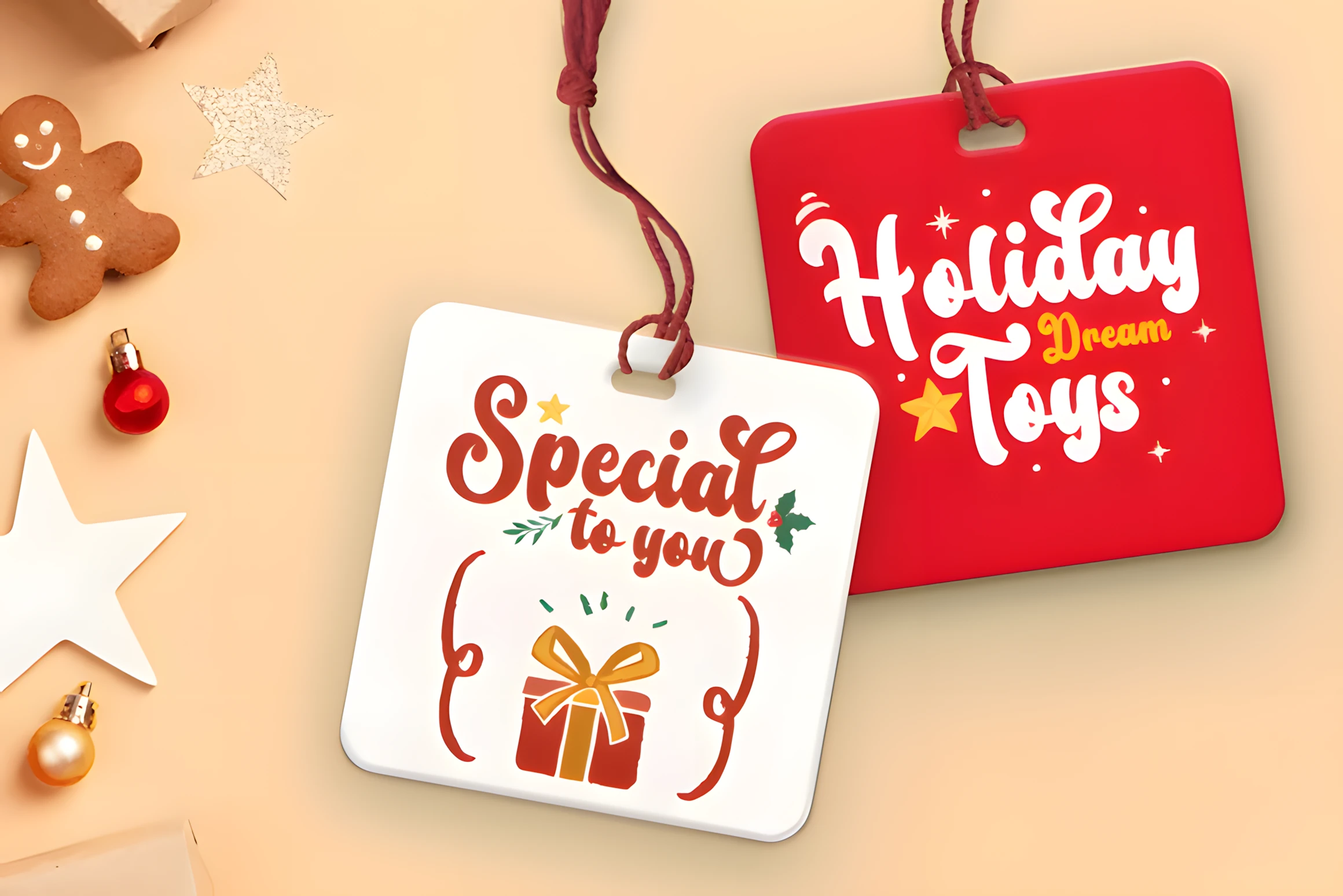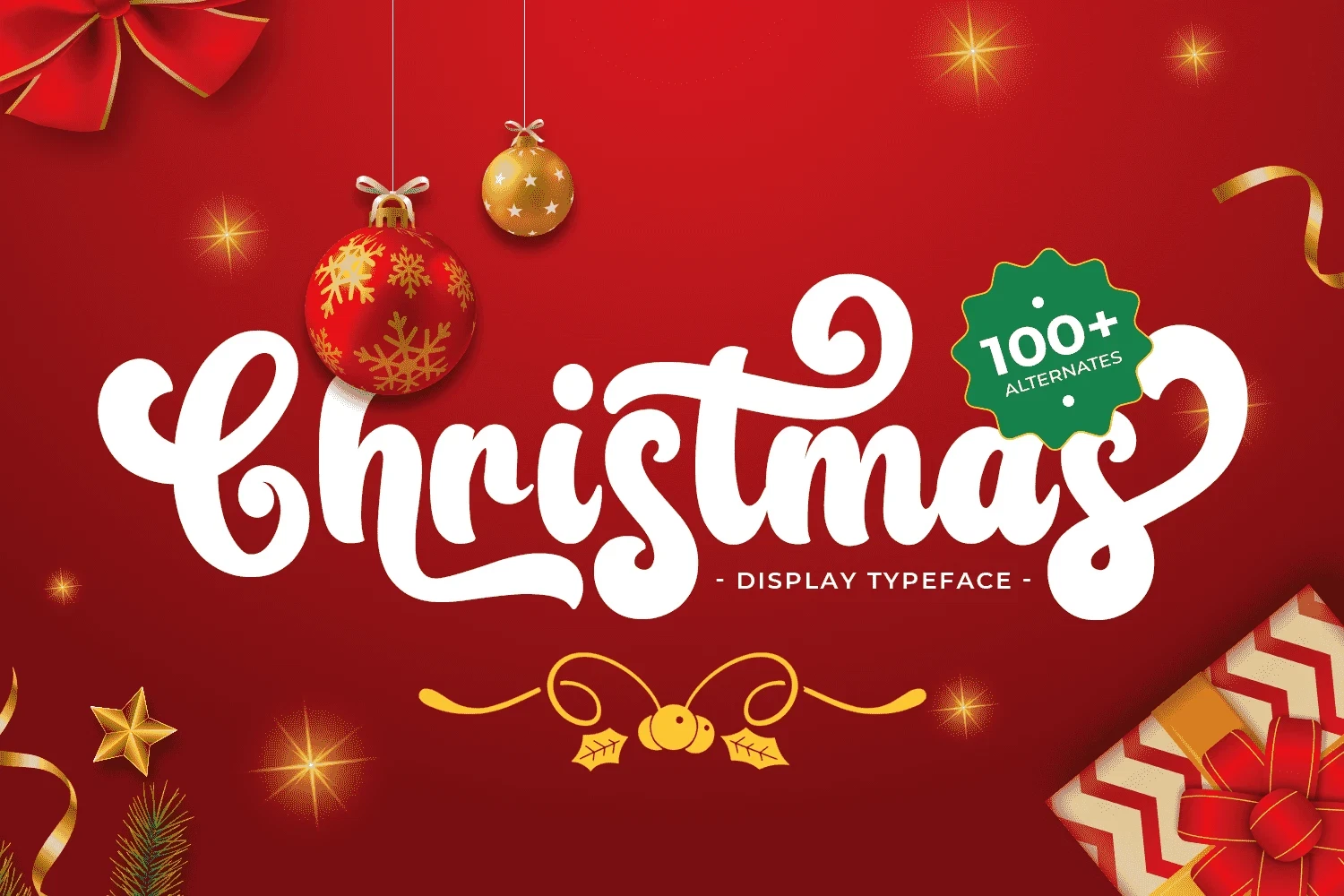
Christmas is a sweet, handwritten font that looks like it was made with love. Each letter appears as if it was gently brushed on paper—soft, cheerful, and festive. It feels personal, so it’s great for designs that need a human touch and a bit of romance. Use it for wedding invites, holiday cards, or heartfelt notes. Christmas adds a festive touch without being too much.
This handwritten Christmas font works well for both crafts and branding. It looks good on home décor and business logos. The writing is confident and fun, mixing class with joy. It’s great for frames, stationery, book covers, packaging, and keepsakes where feelings are important.
What makes Christmas special is that it’s easy to use. Every letter and join is simple to get to, so designers can play around without any problems. It makes customization easy, letting you create visual stories that feel real. This calligraphy Christmas font is good for any project, like holiday decorations, editorial layouts, ads, or fancy marketing materials.
Christmas has a lovely charm. It balances sweetness with class, like a candle shining on a winter night. This festive writing isn’t trendy; it just fits in nicely. If you want holiday letters that feel real, personal, and charming, Christmas is a classic choice that will stick with people even after the holidays are over.